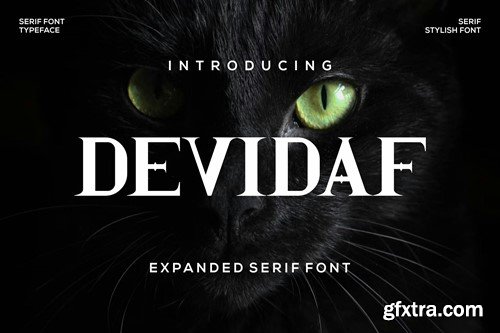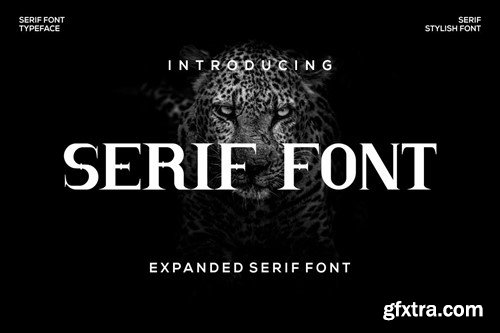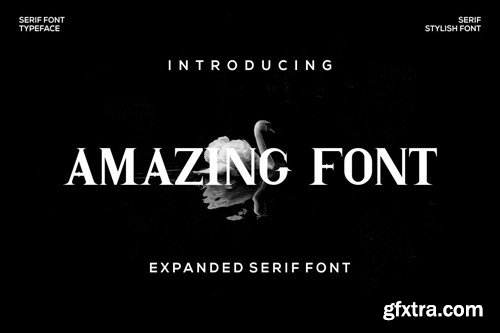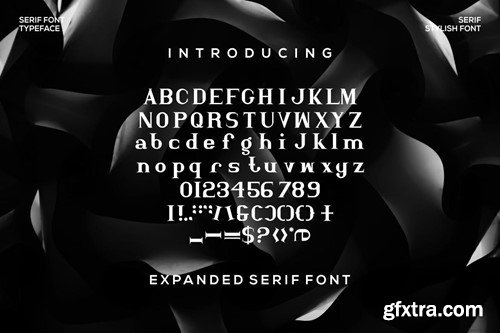
Didaf Font C4PPAQK
Devidaf Font
Introducing our new product Devidaf Font - Modern Fonts Devidaf Font - Modern Font is a bold and authentic display font. This font is suitable for any branding projects such as logos, esport and more. extraordinary in many contexts. available *otf *ttf